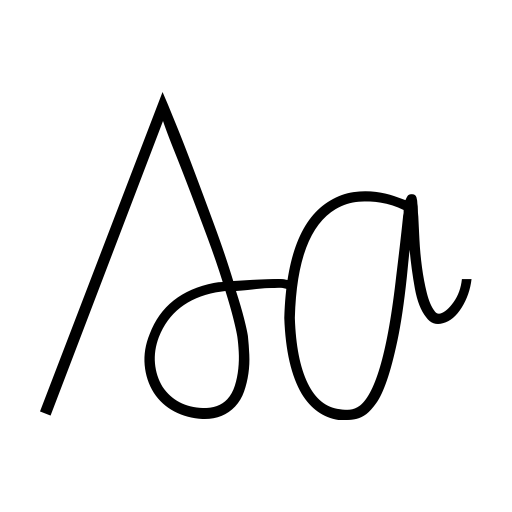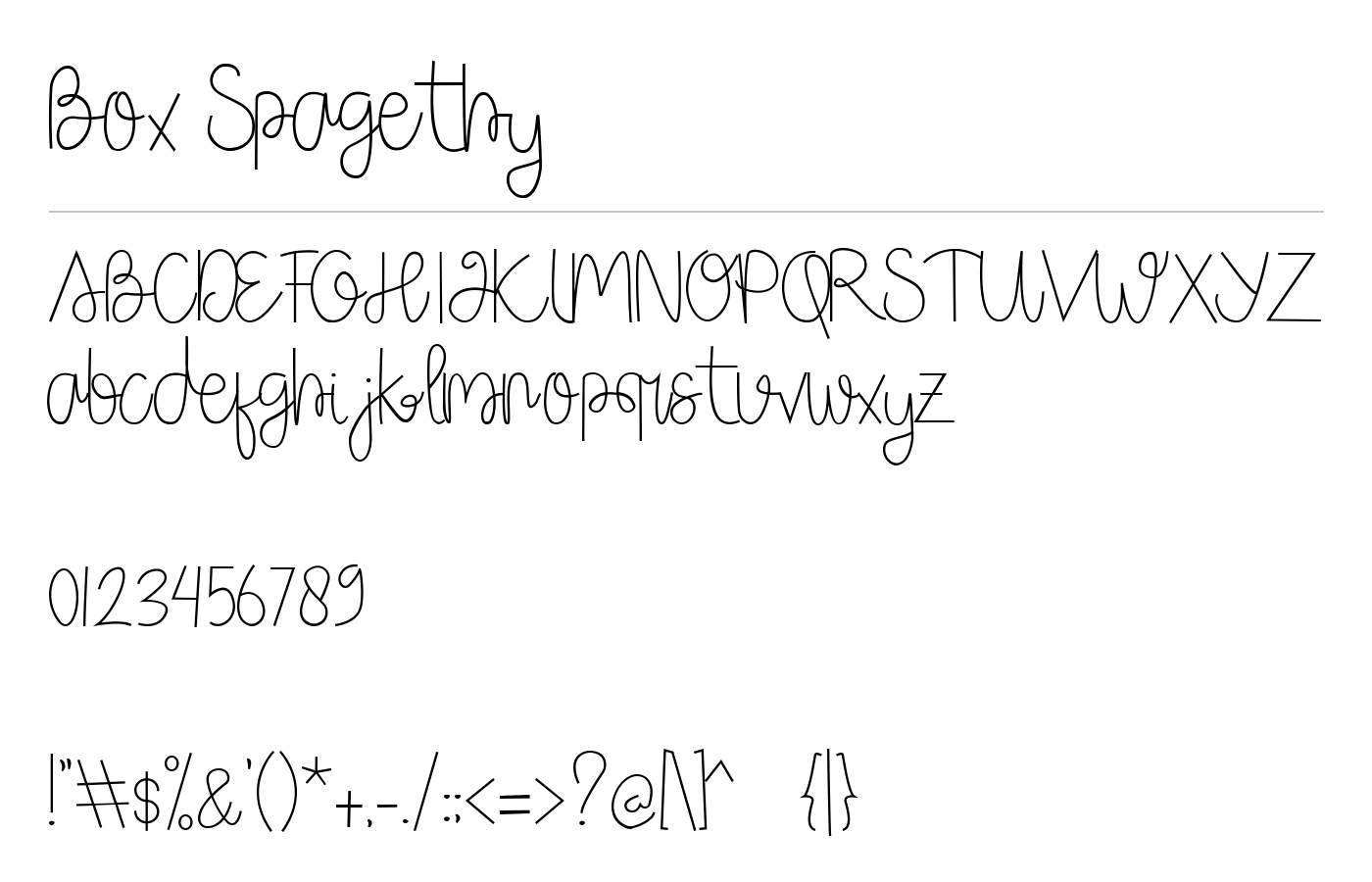
Box Spagethy is a delicate, whimsical handwritten font with tall, narrow letterforms and thin strokes that give it an airy, playful feel. Its unique loops and curls add character, making it perfect for creative projects that want to express charm and individuality. This font works well for invitations, logos, and casual branding where a light, quirky touch is desired.
Box Spagethy Font
About Box Spagethy Font